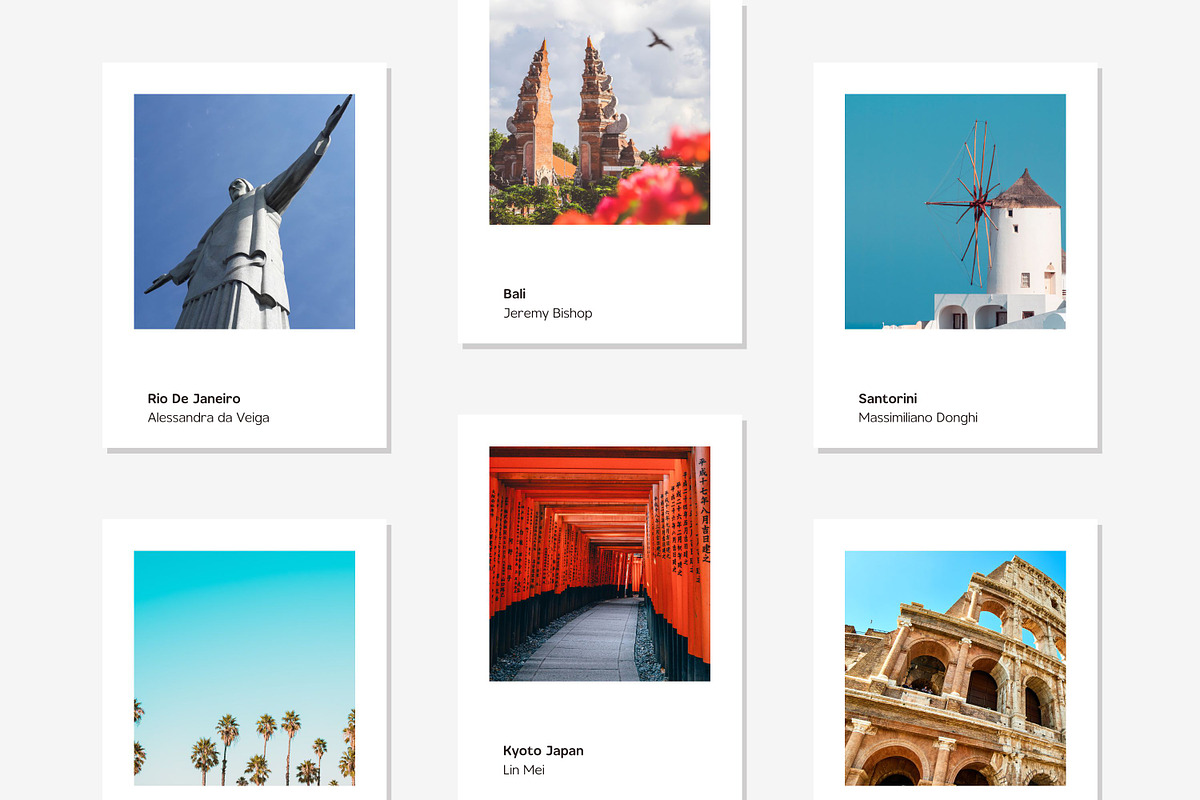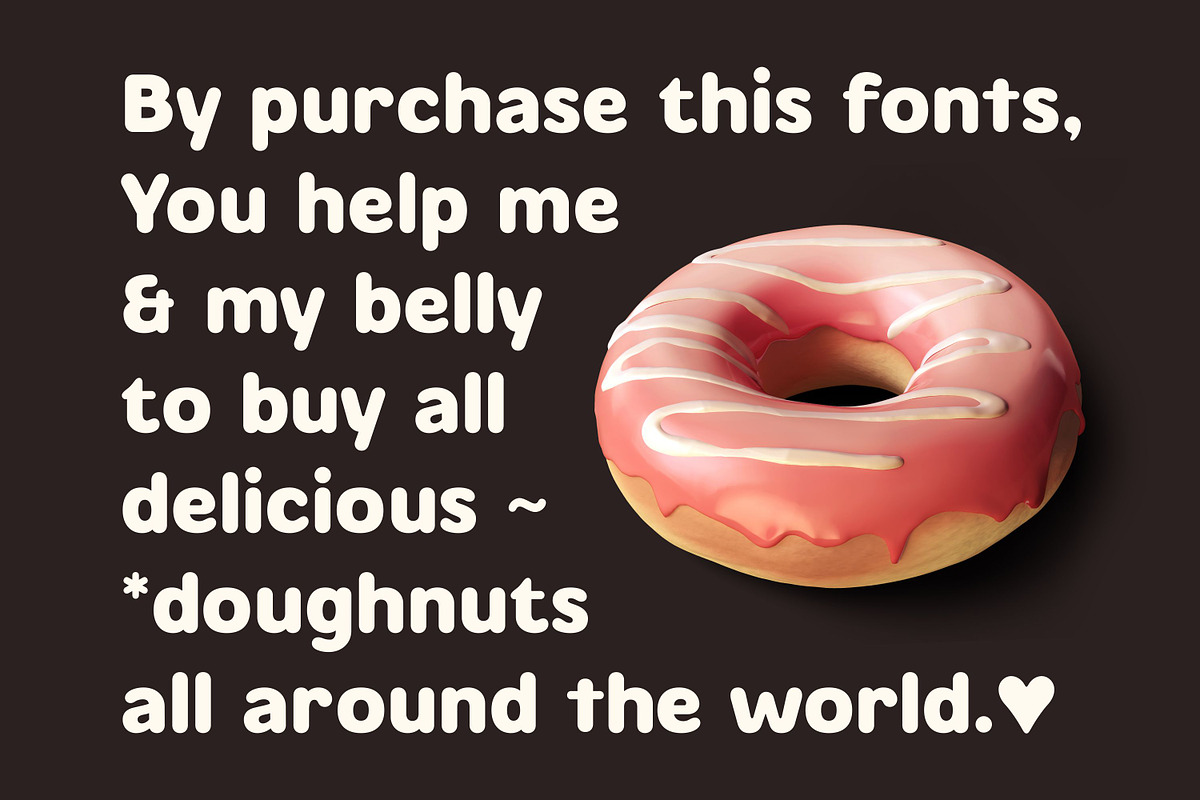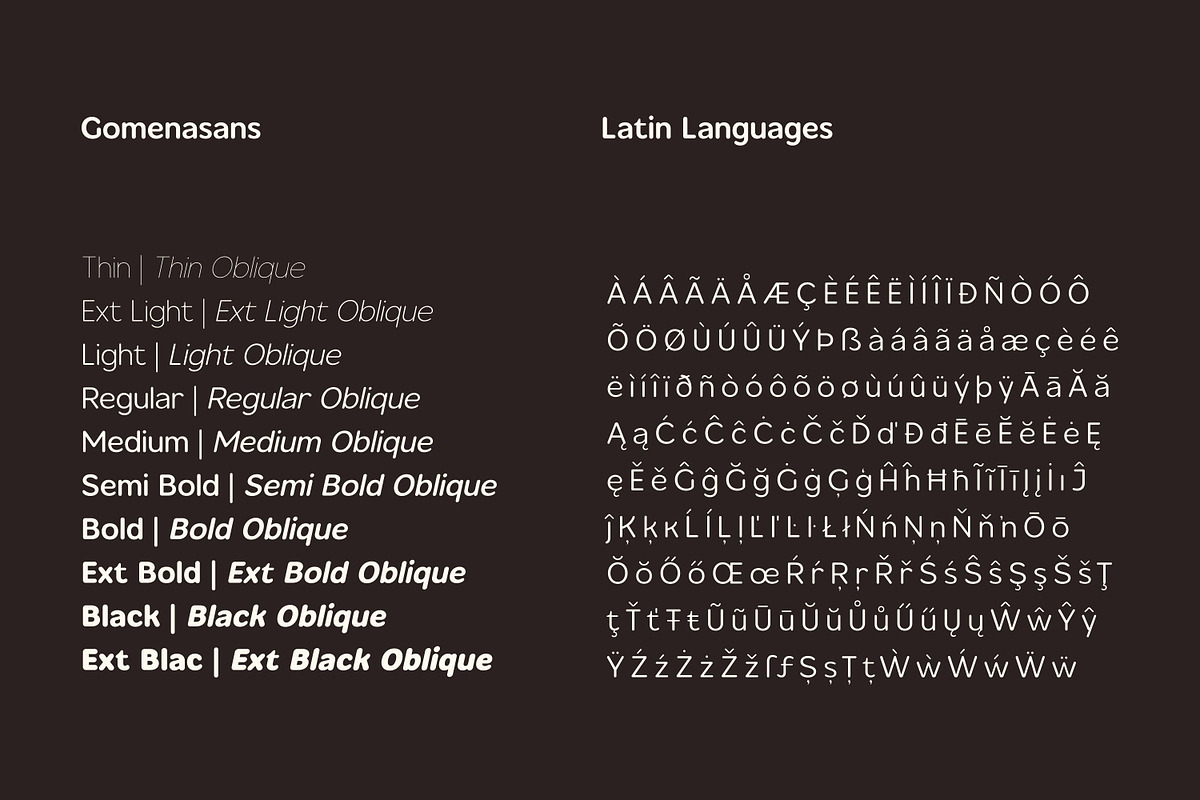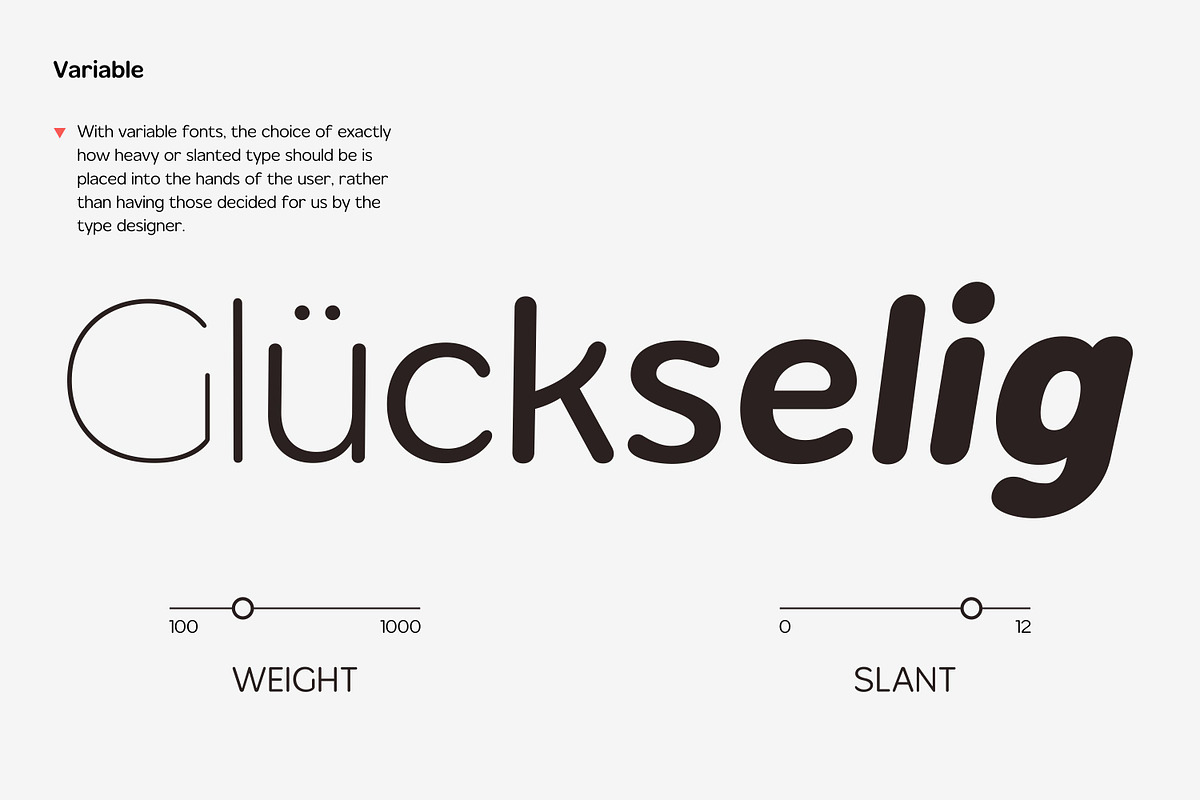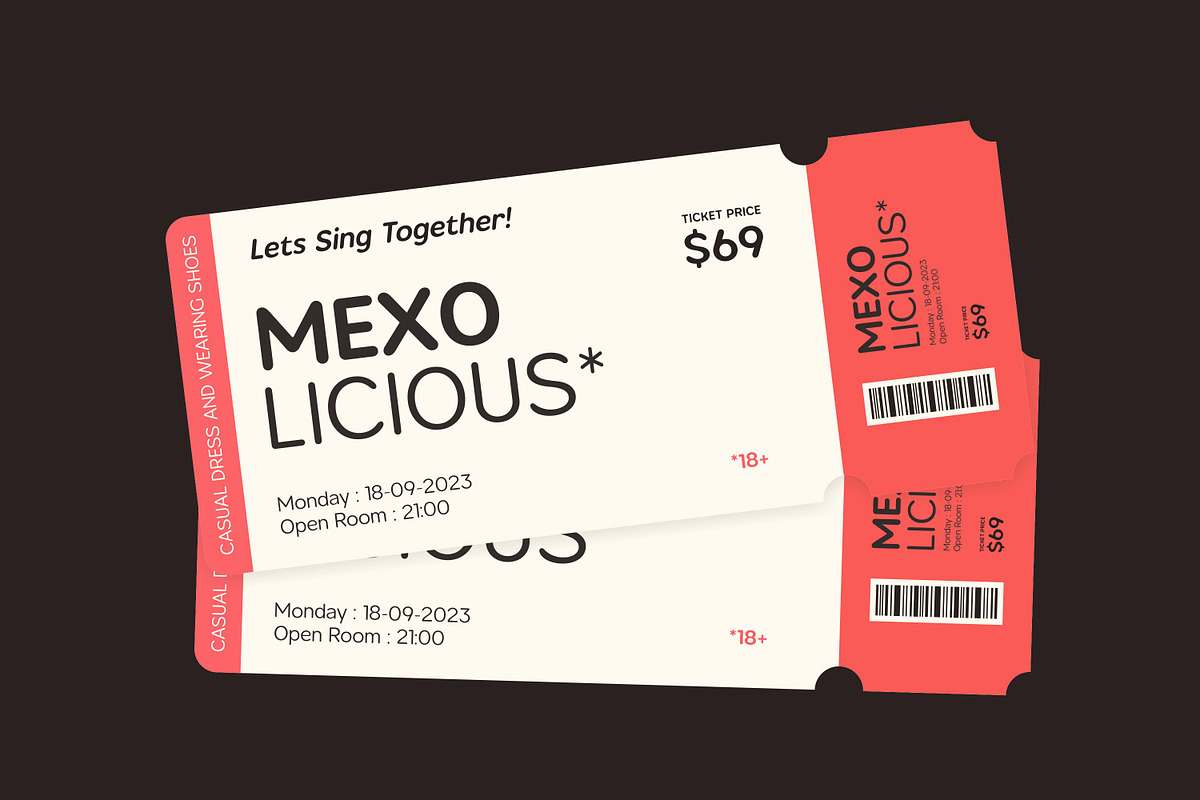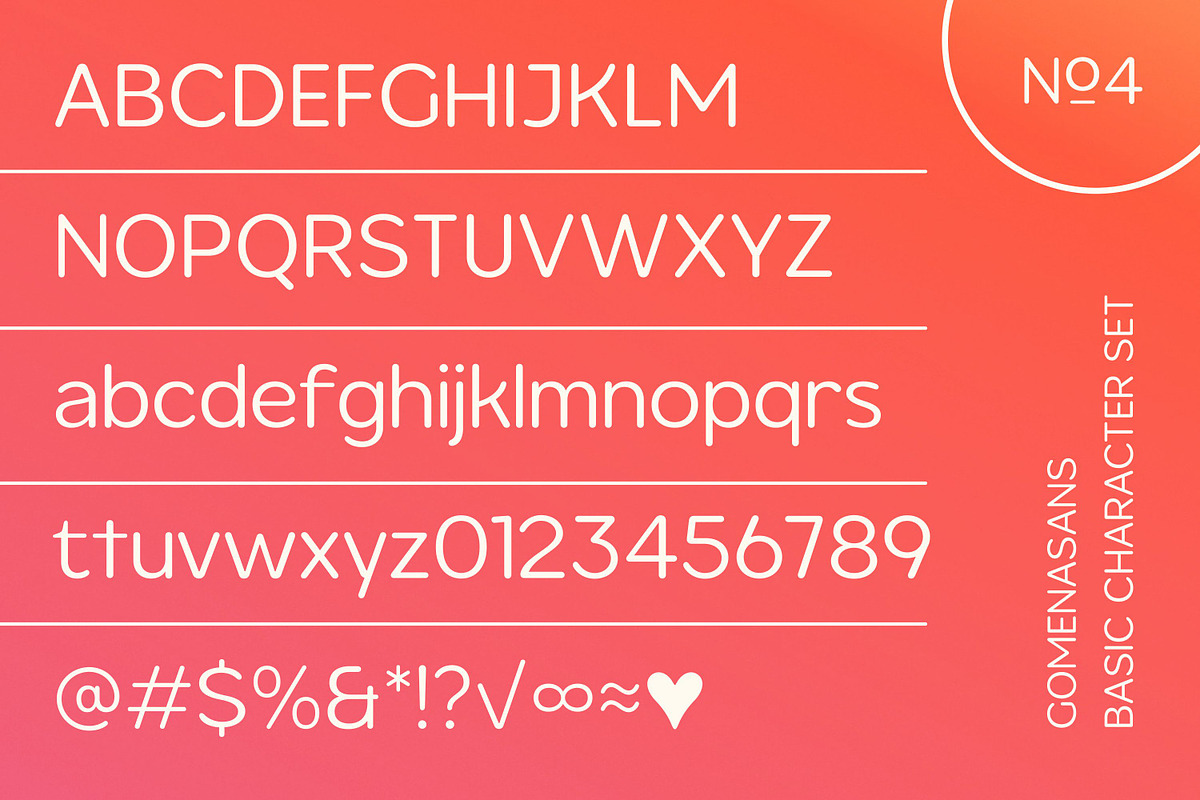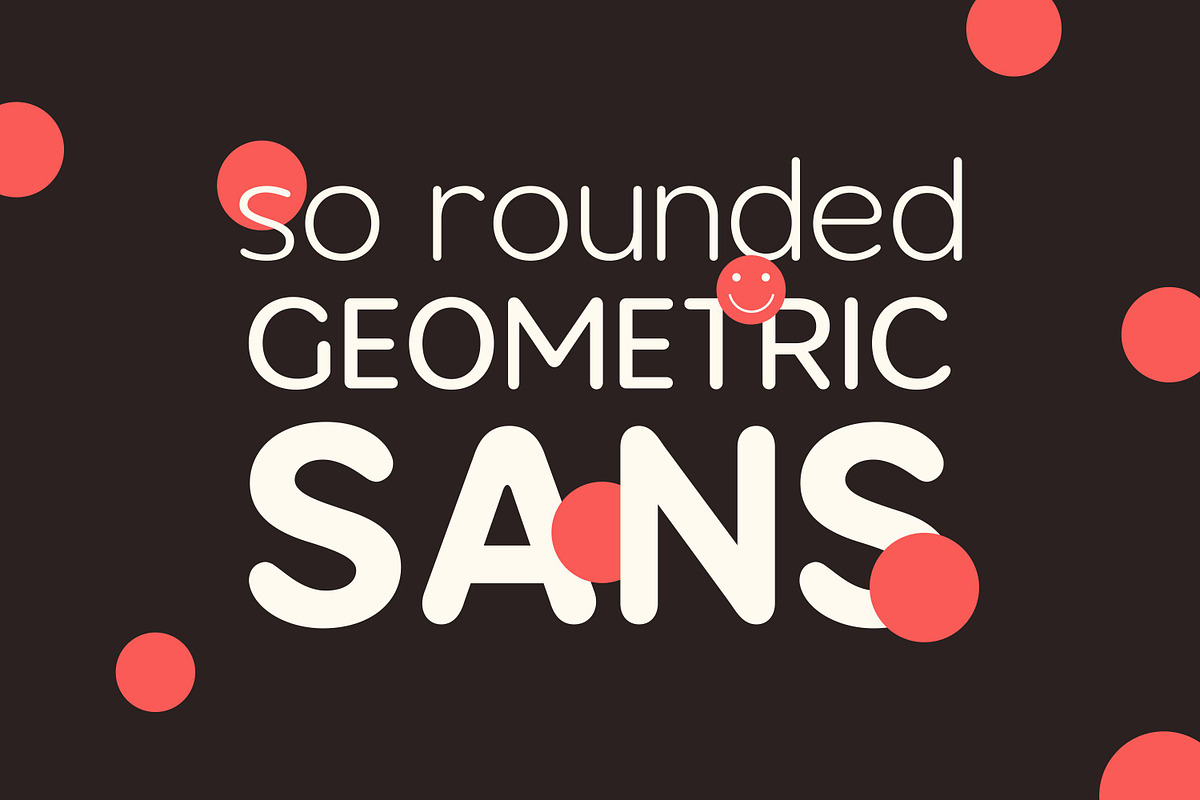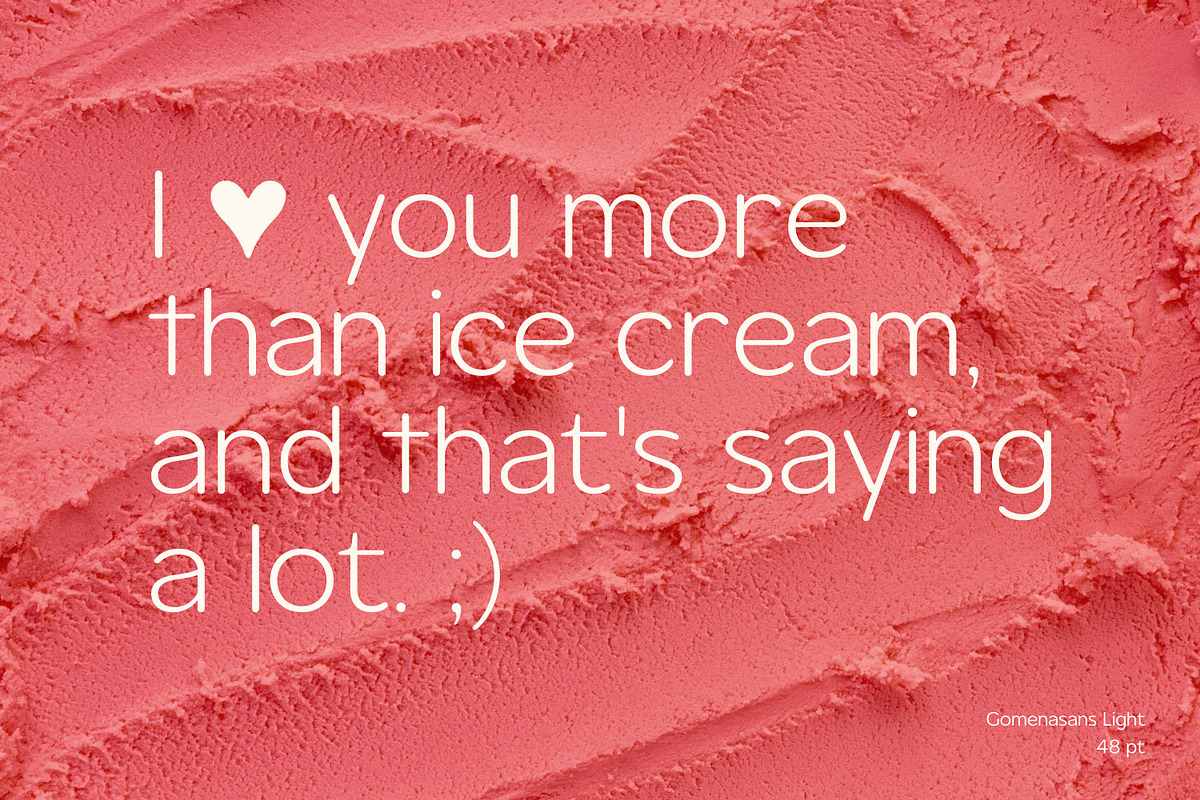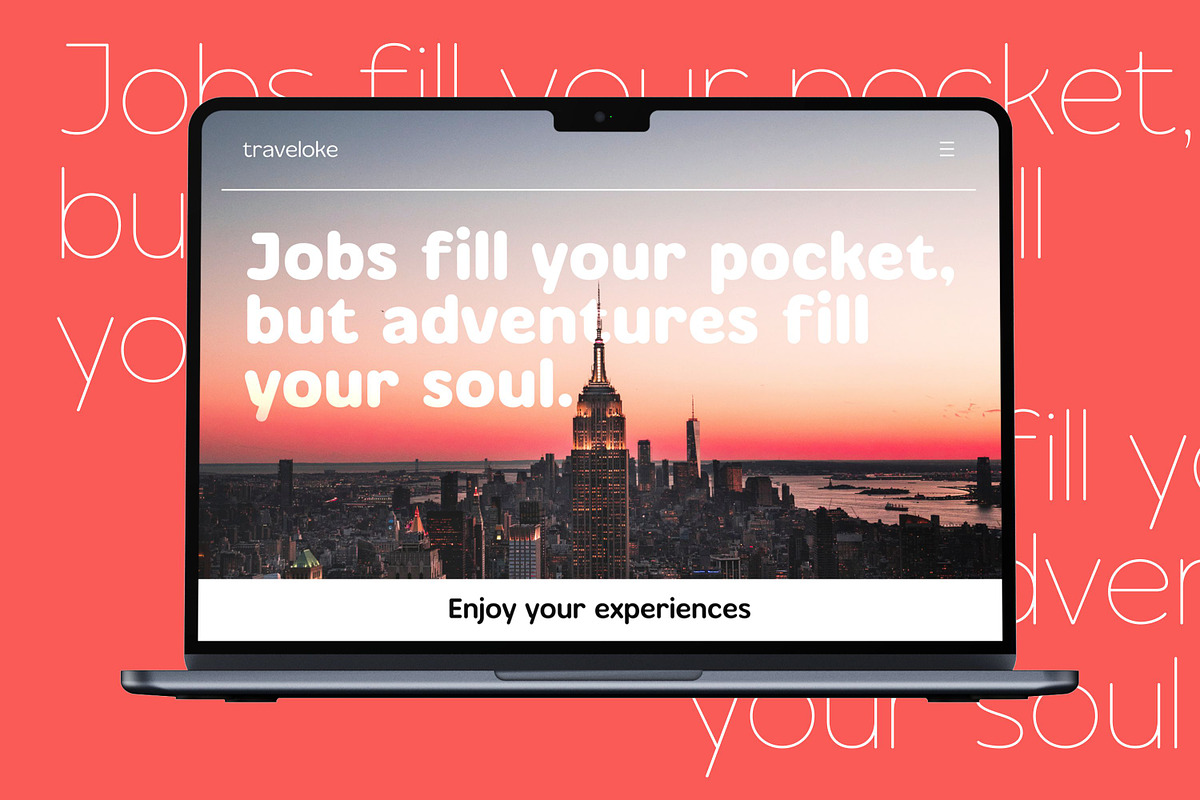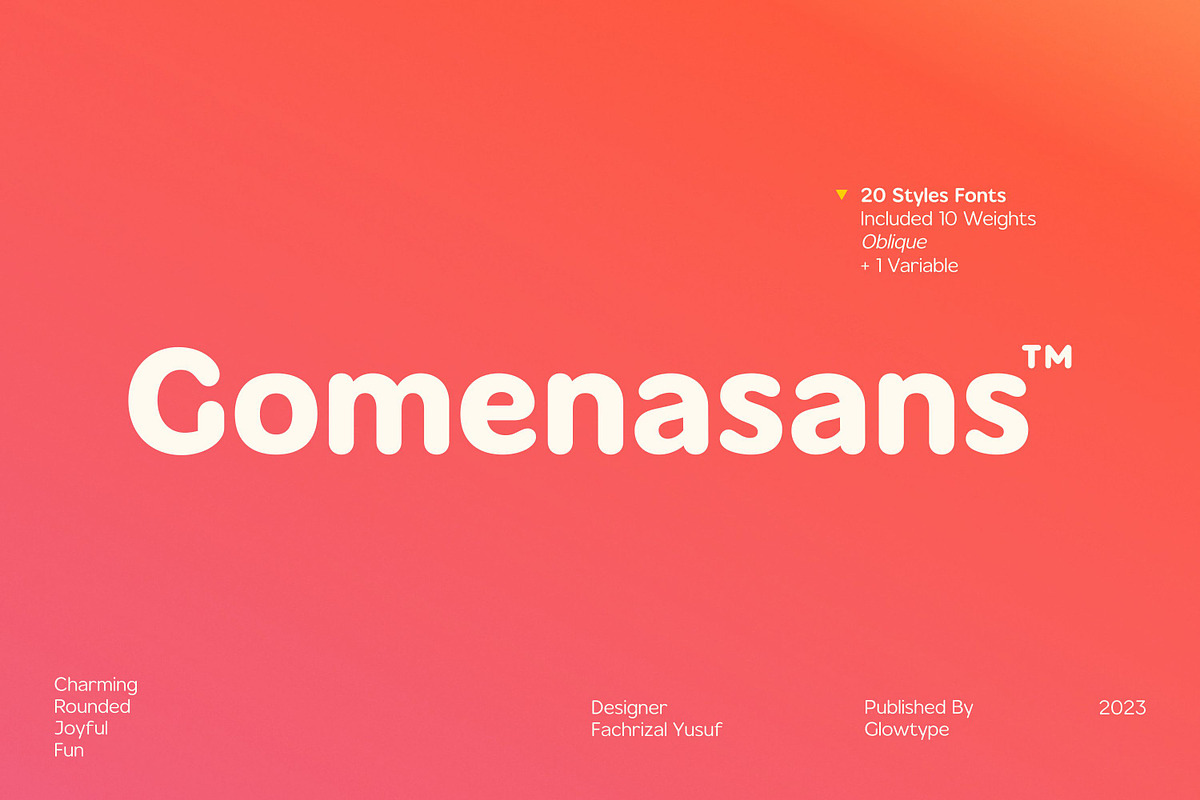
Gomenasans Geometric Rounded Sans
Inspired by several food products in Japan, bold, cute and cheerful, a round, chunky font with an original 80s touch. Proudly introducing Gomenasans, a rounded geometric sans.
Gomenasans consisting of several types of weights, from thin to black and oblique with a total of 20 styles and variables. The perfect choice for all your branding needs.